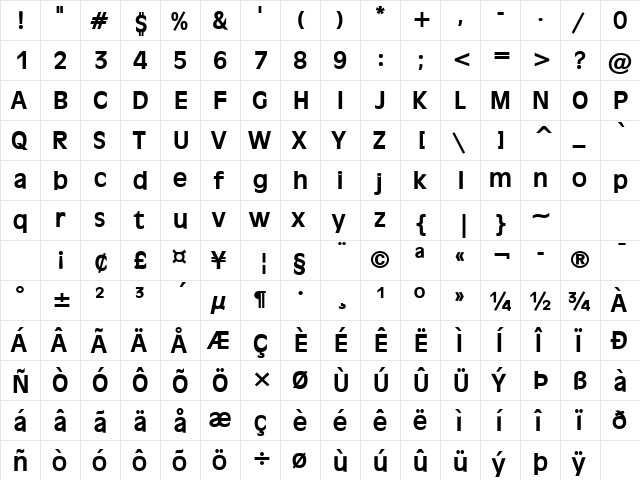
Antiqua 101 Bold
Design Context for Antiqua 101 Typeface
Antiqua 101 offers clean, dependable letterforms without strong stylistic allegiance, making it a practical choice for designers who need flexibility. Its bold stroke weight gives it real presence on the page.